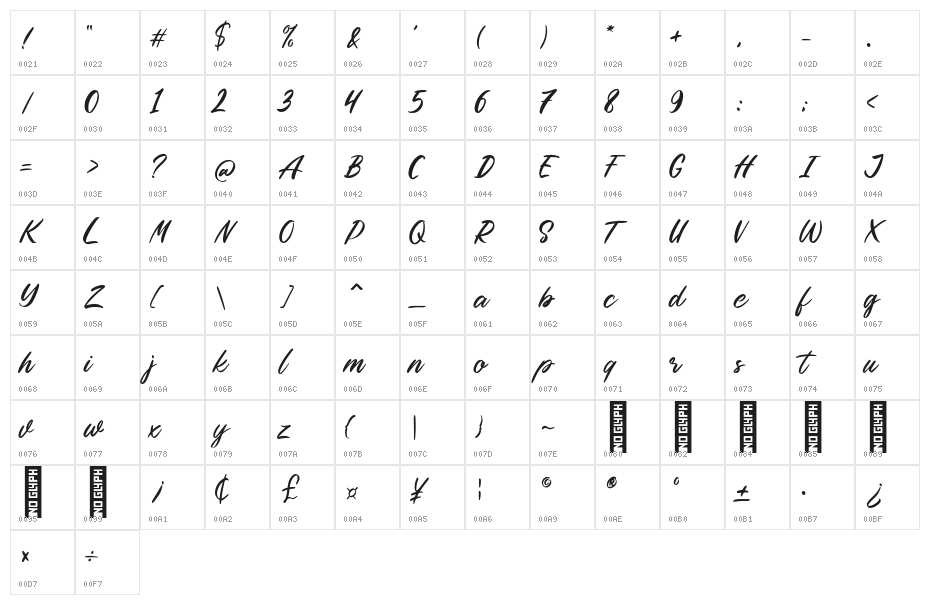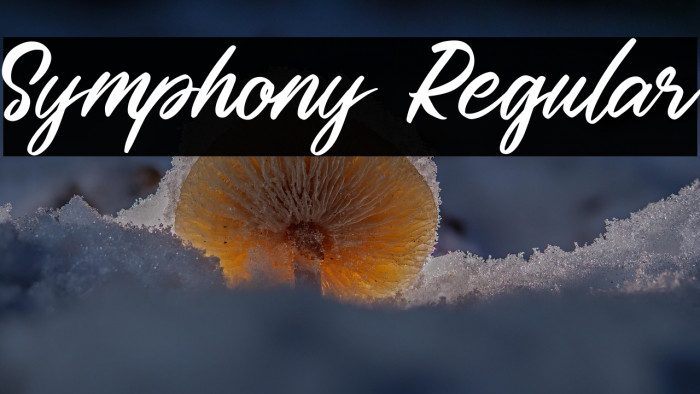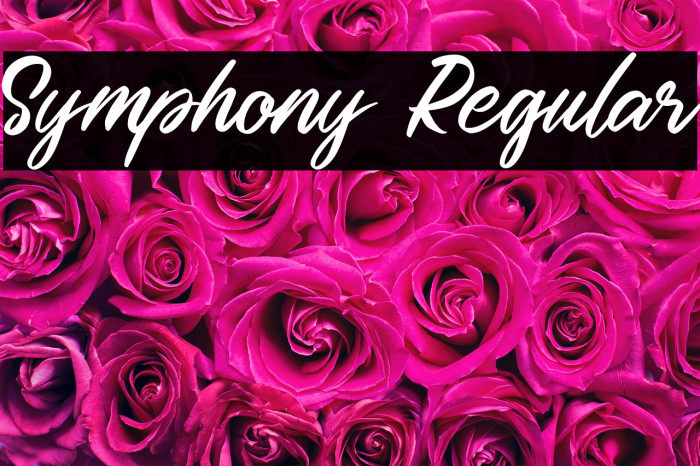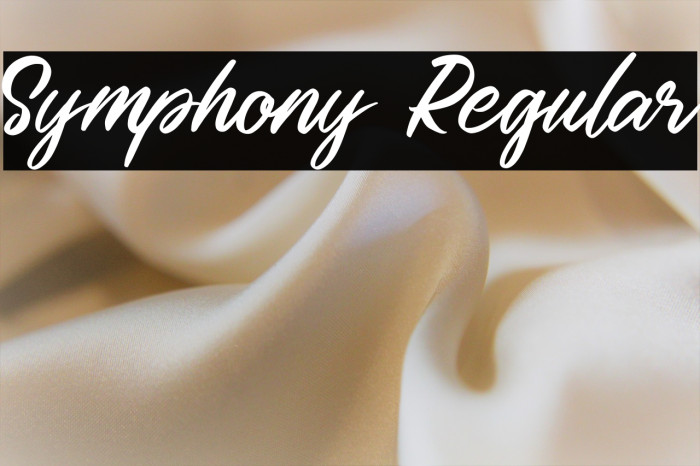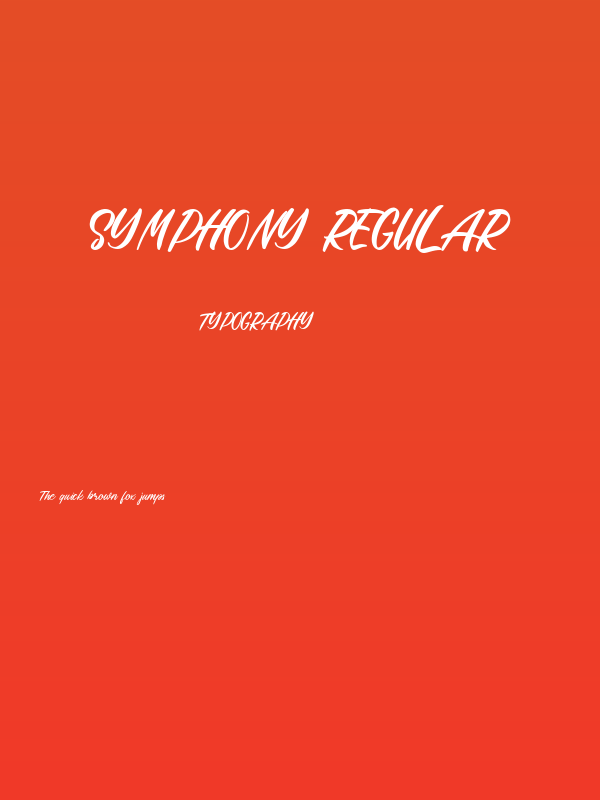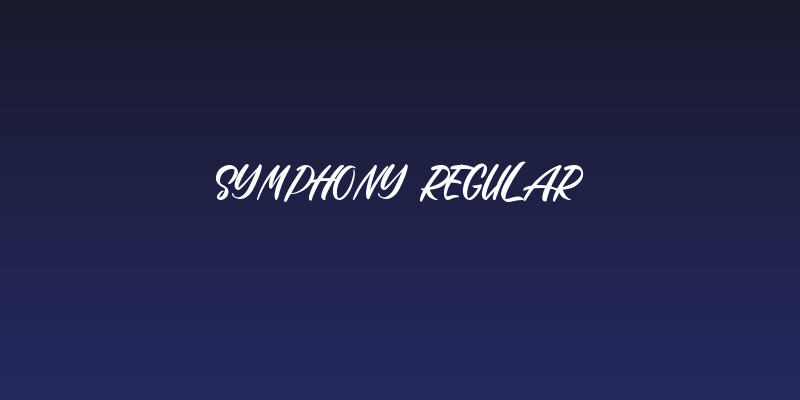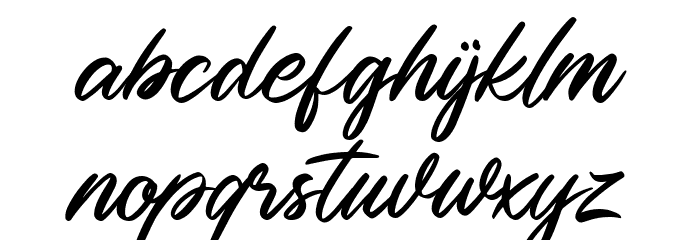
Symphony Regular Font
Symphony Regular Description
This font exudes a dynamic and fluid style, characterized by its elegant and flowing script. The letters are interconnected with smooth curves and a slight slant, giving it a handwritten appearance. The uppercase letters are bold and expressive, while the lowercase letters maintain a consistent rhythm and flow. The numerals are well-integrated, matching the overall aesthetic with their curvaceous forms. Special characters are crafted with the same attention to detail, ensuring a cohesive look across all glyphs. This font is perfect for adding a personal touch to any design, with its artistic flair and sophisticated charm.